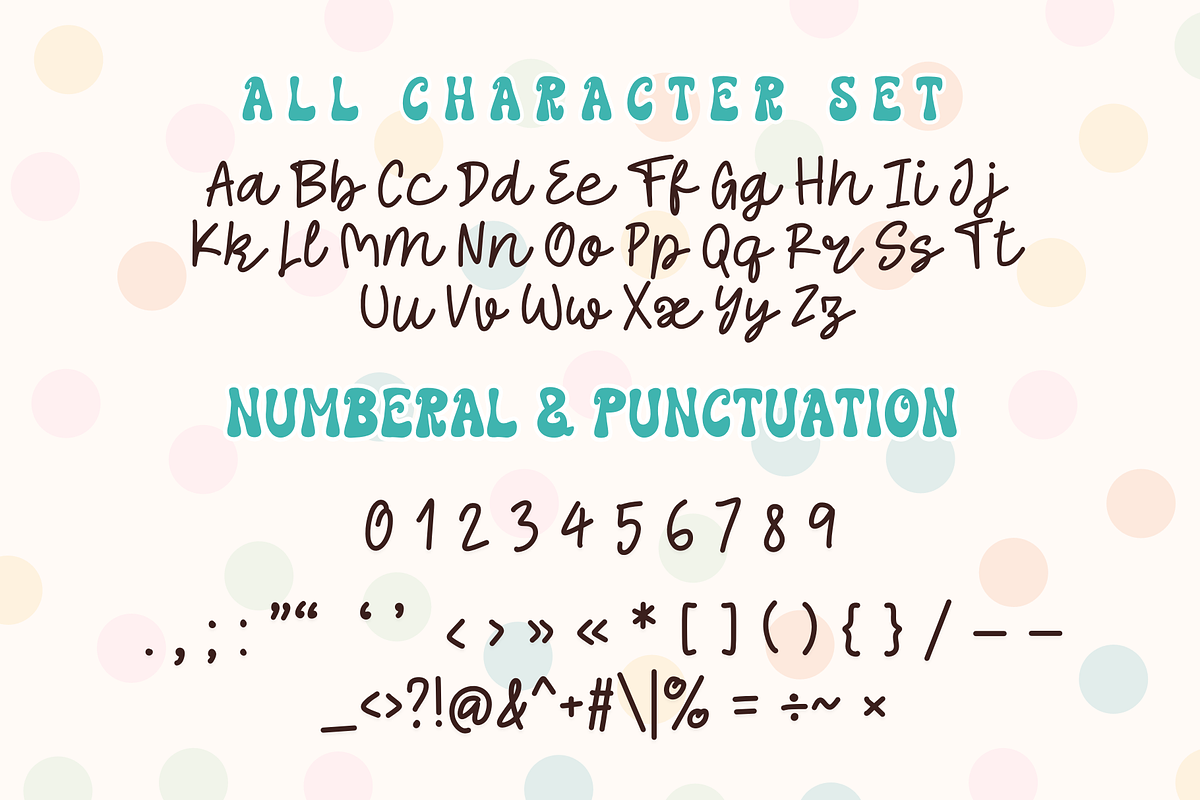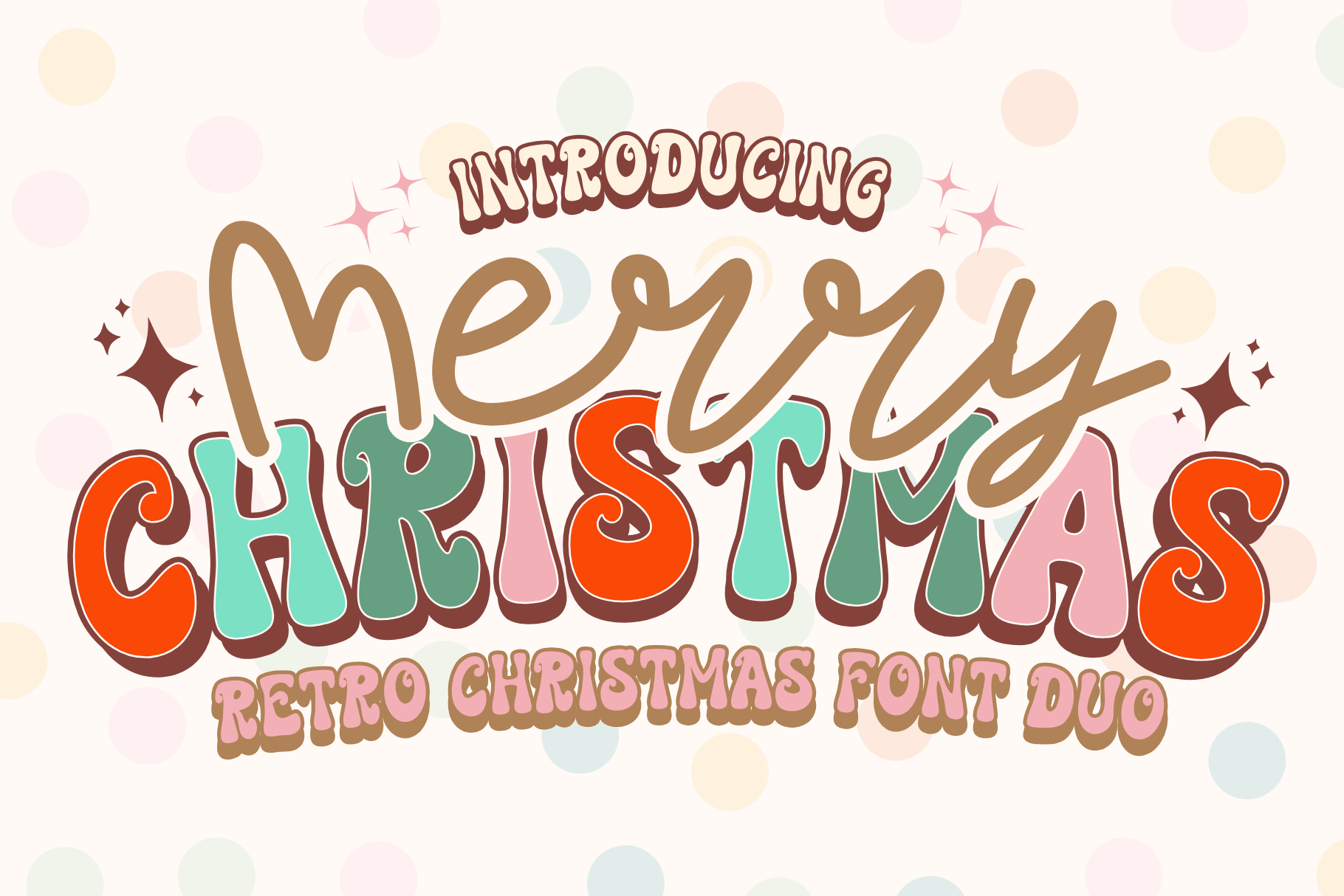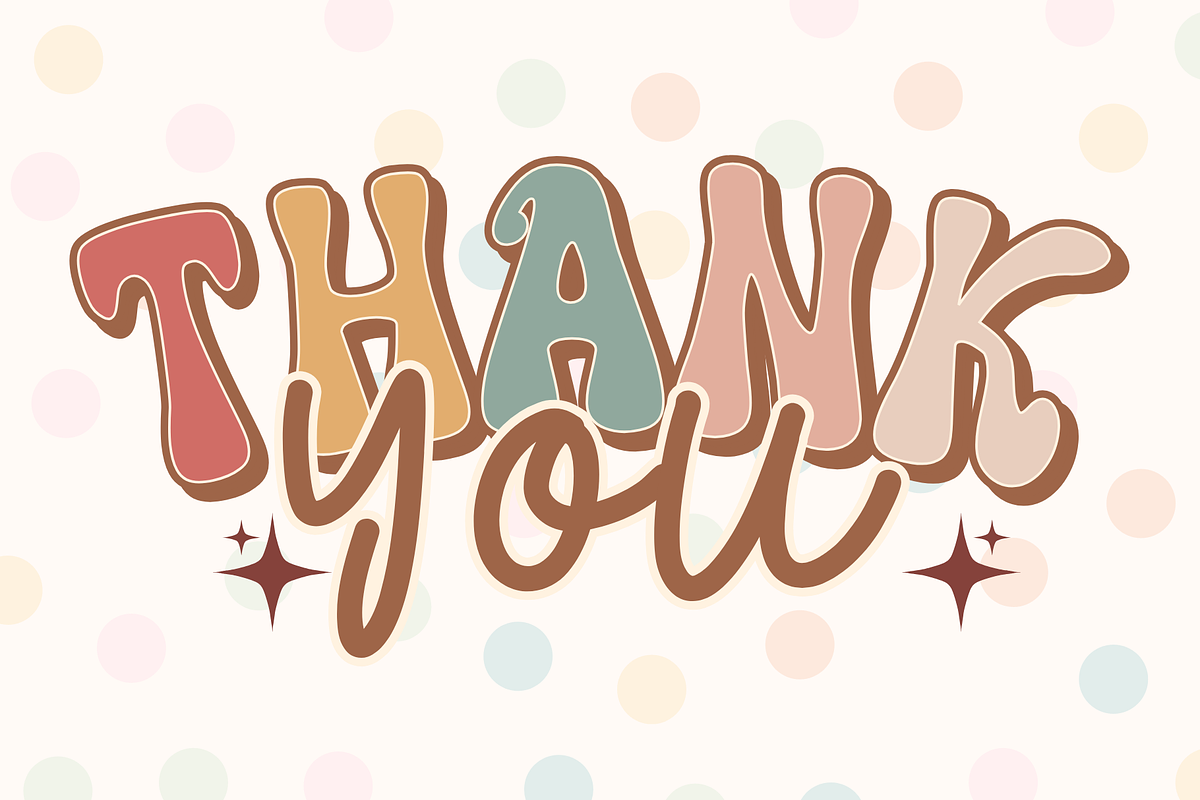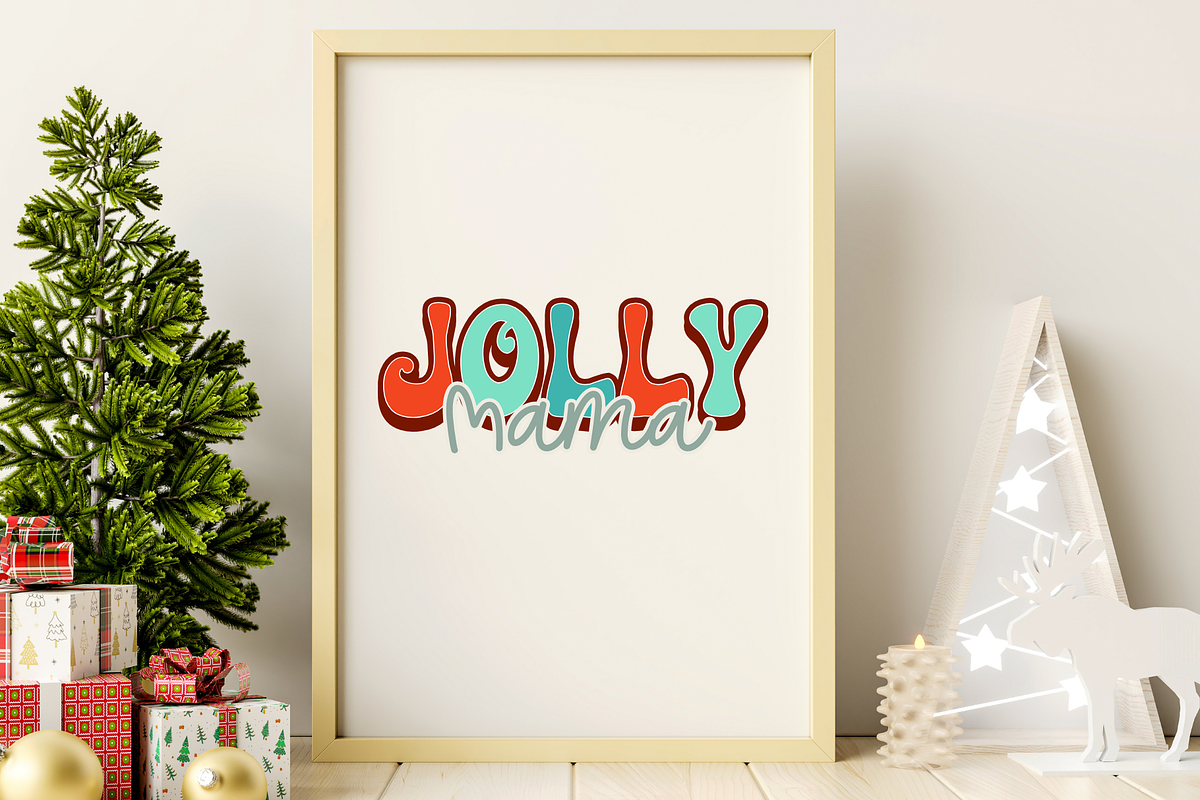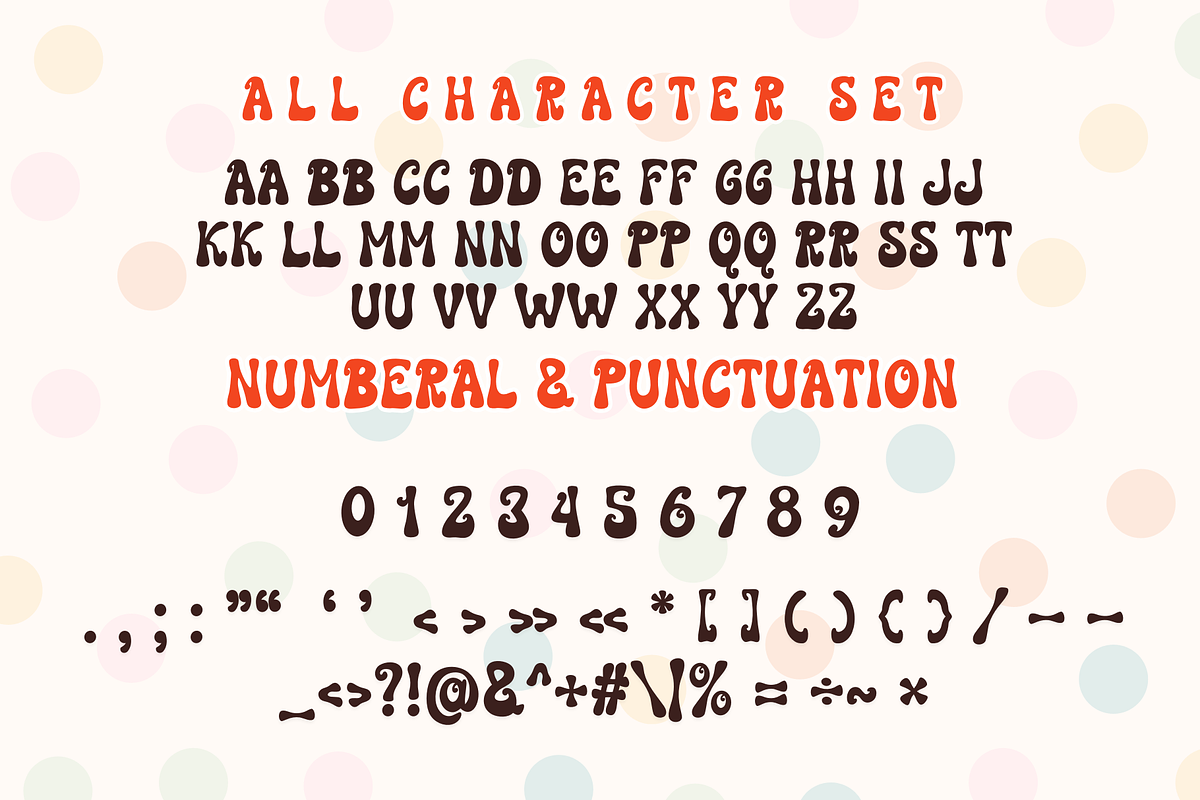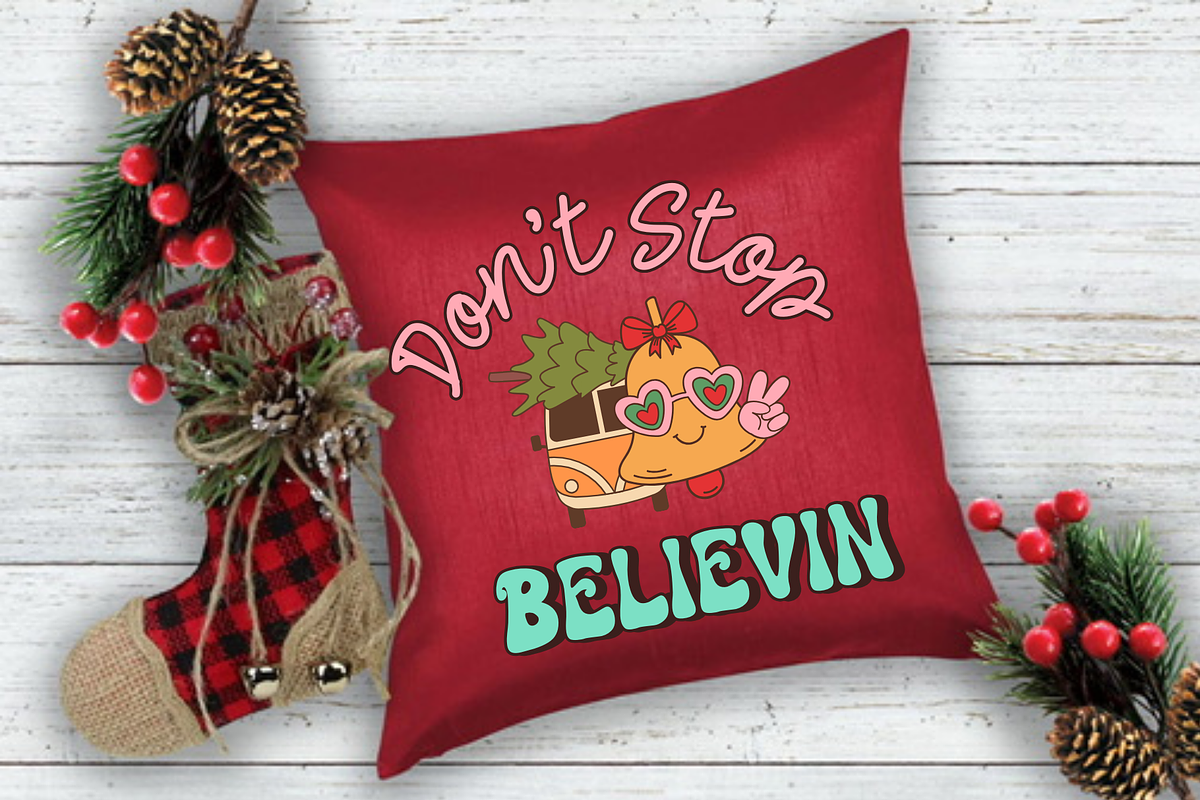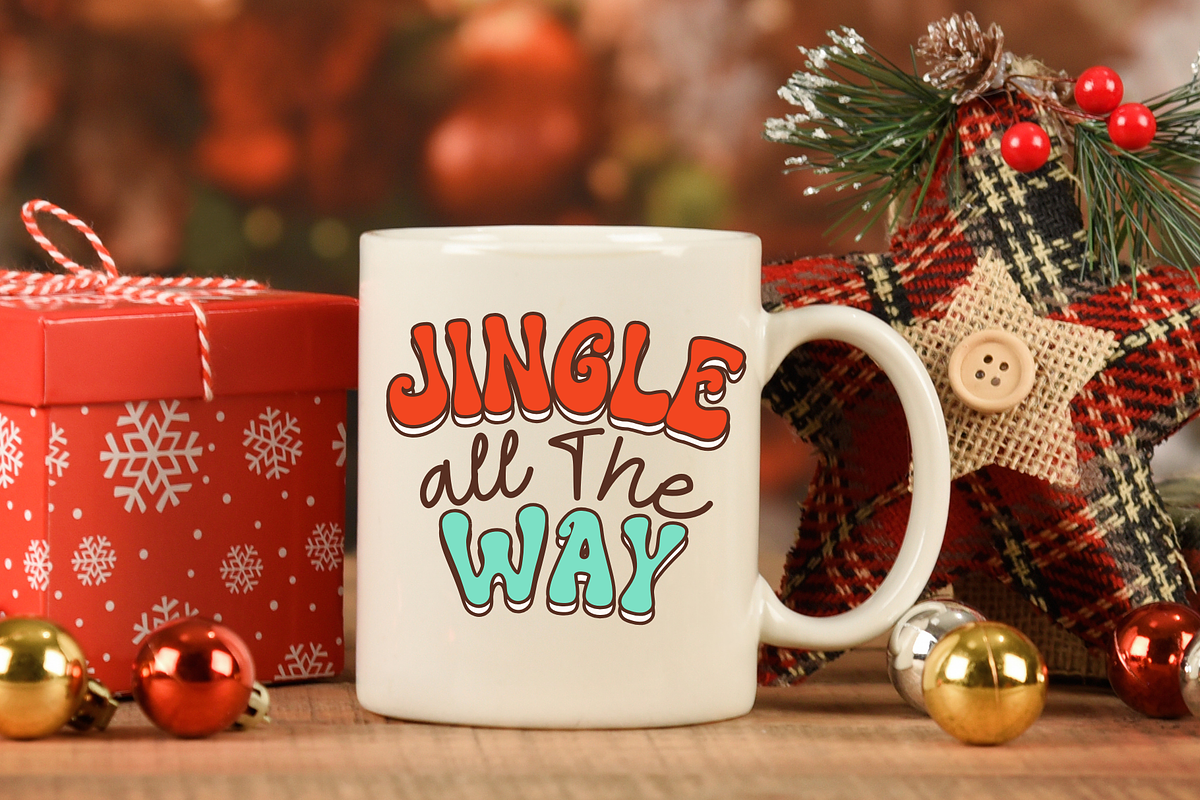
Merry Christmas is Xmas duo font
Merry Christmas is a stylish retro Christmas duo font, combining a display and handwritten typeface that exudes a cool and groovy aesthetic. Ideal for all your hippie-inspired designs, It embodies playfulness and authenticity and is the perfect choice for all your favorite projects, or even for blog posts, logos, branding, ads, invitations, greeting cards, planners, photo albums, decorations, and much more. Add it to any of your designs, and enjoy the results!